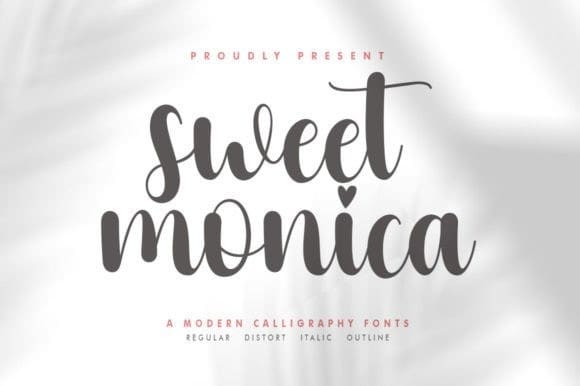
Sweet Monica Font
Sweet Monica Font, is an elegant script with a creative mood and perfect form, inspired by today’s beautiful calligraphy. The font is thick, balanced, and varied, excellent for luxurious and beautiful design ideas. Keep in mind that the font is PUA encoded, meaning that you can access all delightful glyphs and swashes effortlessly.